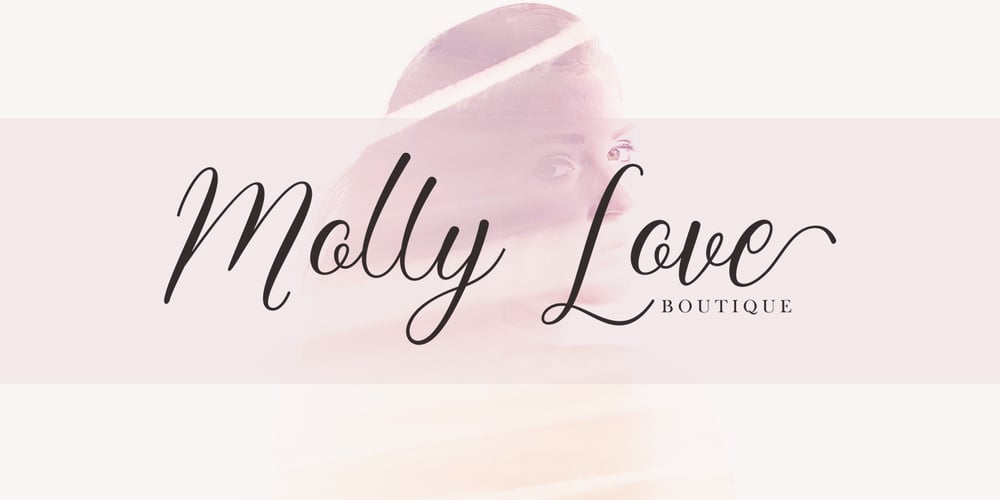
Girly Heart Script
Girly Heart Script font
Girly Heart Script Font Family was designed by Sidiq Fahmi and published by Rotterlab Studio. Girly Heart Script contains 1 styles and family package options. Girly Heart Script: A sweet hand lettered font, casual and dynamic with a dancing baseline. Also available Platipus Sans & Ornaments to help you mix and match it to fit your creative work in harmony. All this to add an authentic touch to your designs. Girly Heart Script is perfect for Branding, Logos, Greeting Cards, Wedding Stationery, Quotes etc. It comes with a handy set of Opentype Stylistic Alternates, Ligatures and multiple language support. To enable the OpenType Stylistic alternates, you need a program that supports OpenType features such as Adobe Illustrator CS, Adobe Indesign & CorelDraw X6-X7, Microsoft Word 2010 or later versions. PUA Unicode. Mac users can use Font Book and Windows users can use Character Map to view and copy any of the extra characters to paste into your favorite text editor/app. Thanks so much for looking, I really hope you enjoy it and please don’t hesitate to drop me a message if you have any issues or queries .